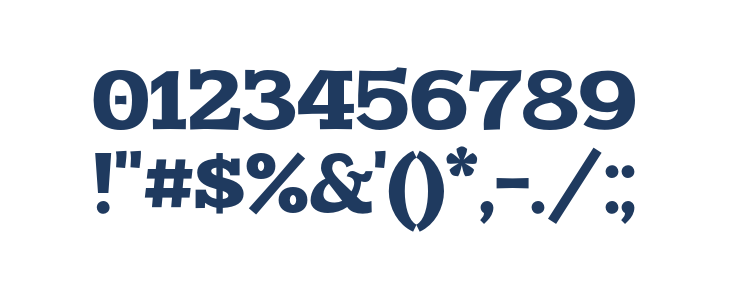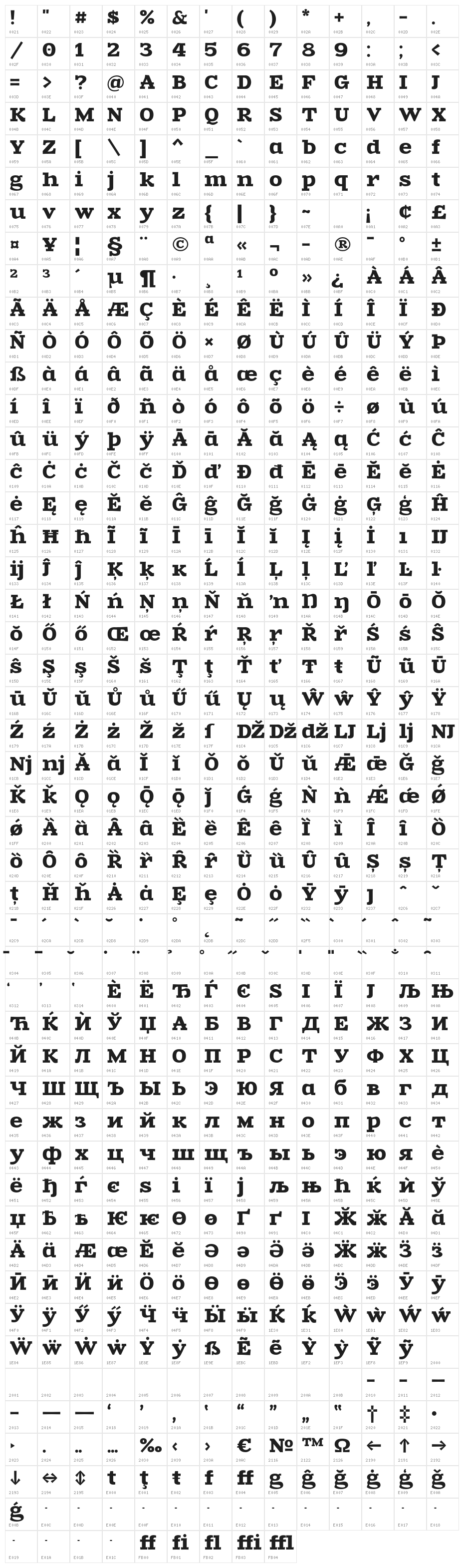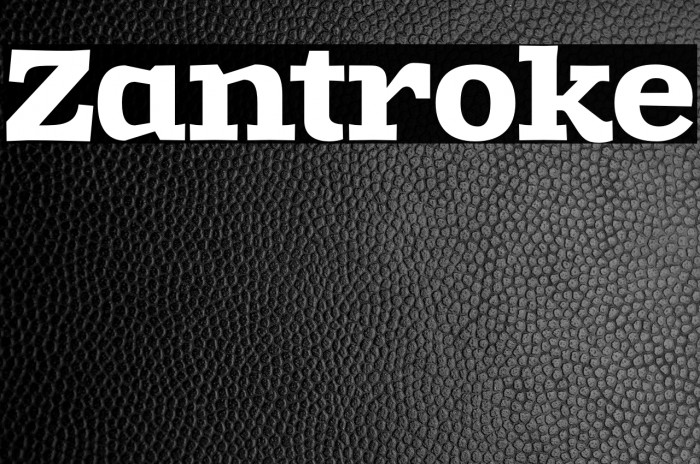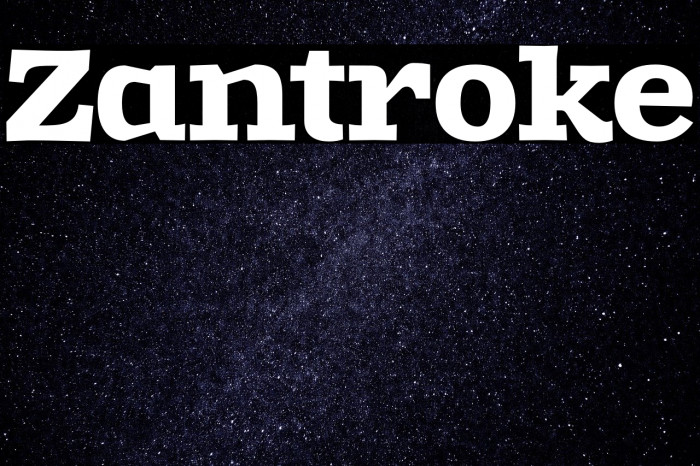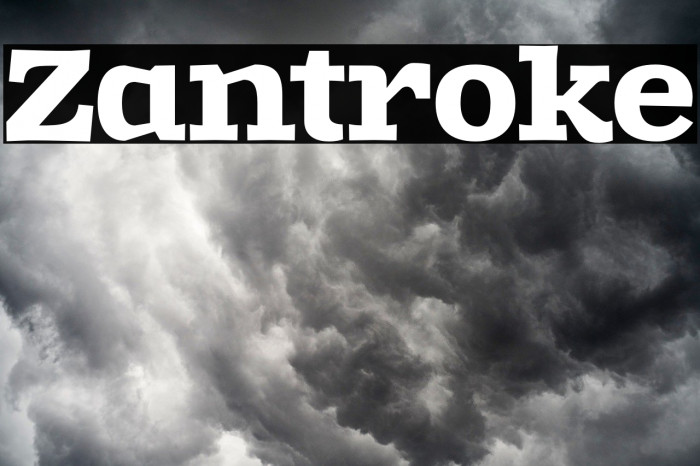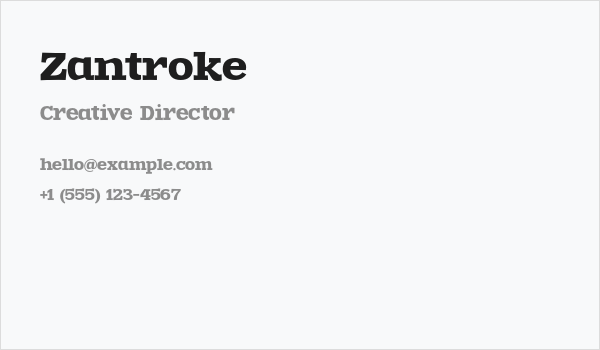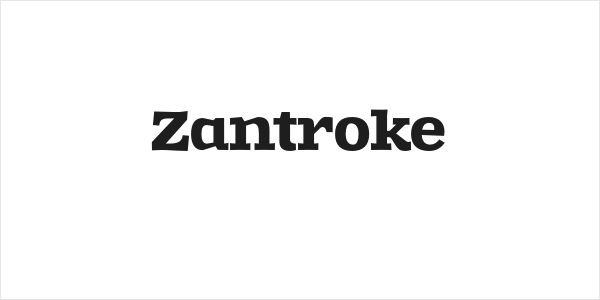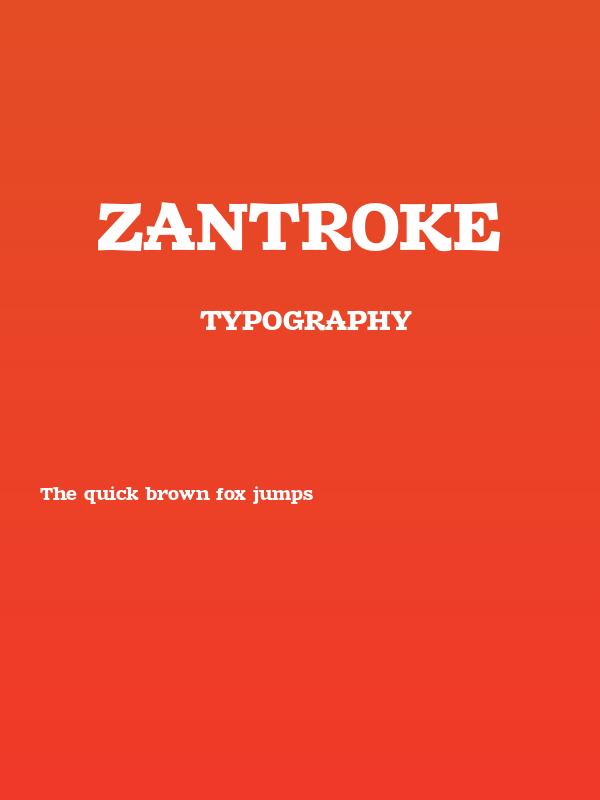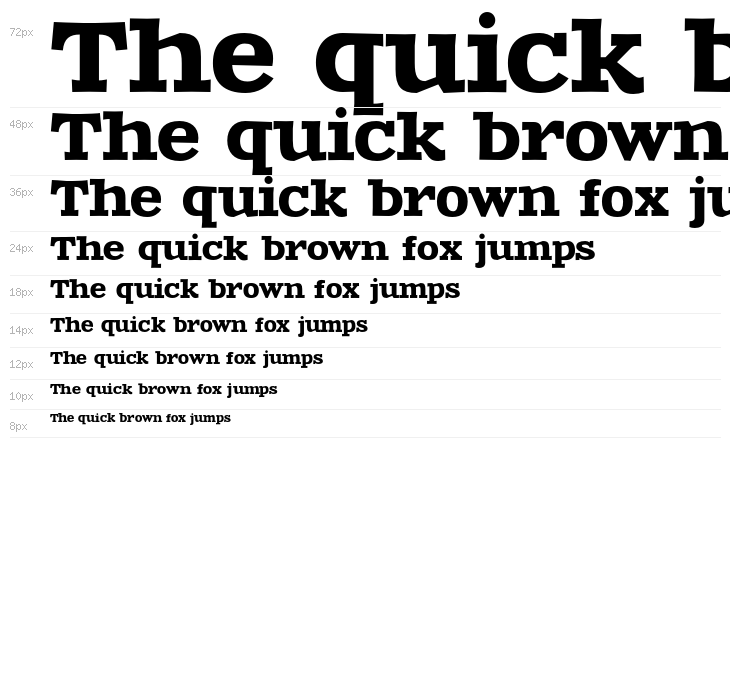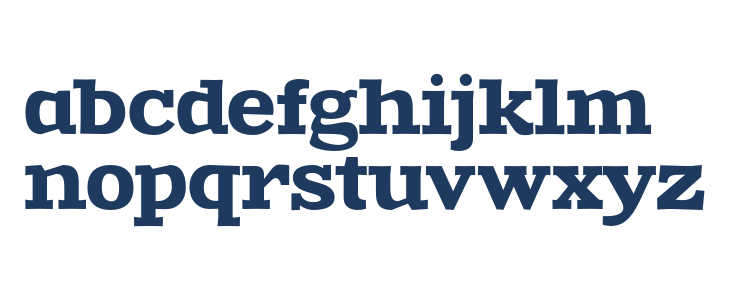
Zantroke Font
Zantroke Description
This font features bold, strong characters with a distinct slab serif style. The letters have a robust and confident appearance, characterized by thick strokes and prominent serifs that give it a classic yet modern feel. The uppercase letters are particularly striking, with a uniform height and width that convey a sense of stability and authority. The lowercase letters maintain the same boldness, ensuring readability and consistency across different text sizes. Numbers and special characters are equally bold, making them stand out effectively. The overall design is clean and impactful, suitable for making a strong visual statement.
| Proposed Projects | Ideal for headlines, posters, branding materials, and any project requiring a bold, authoritative typeface. |